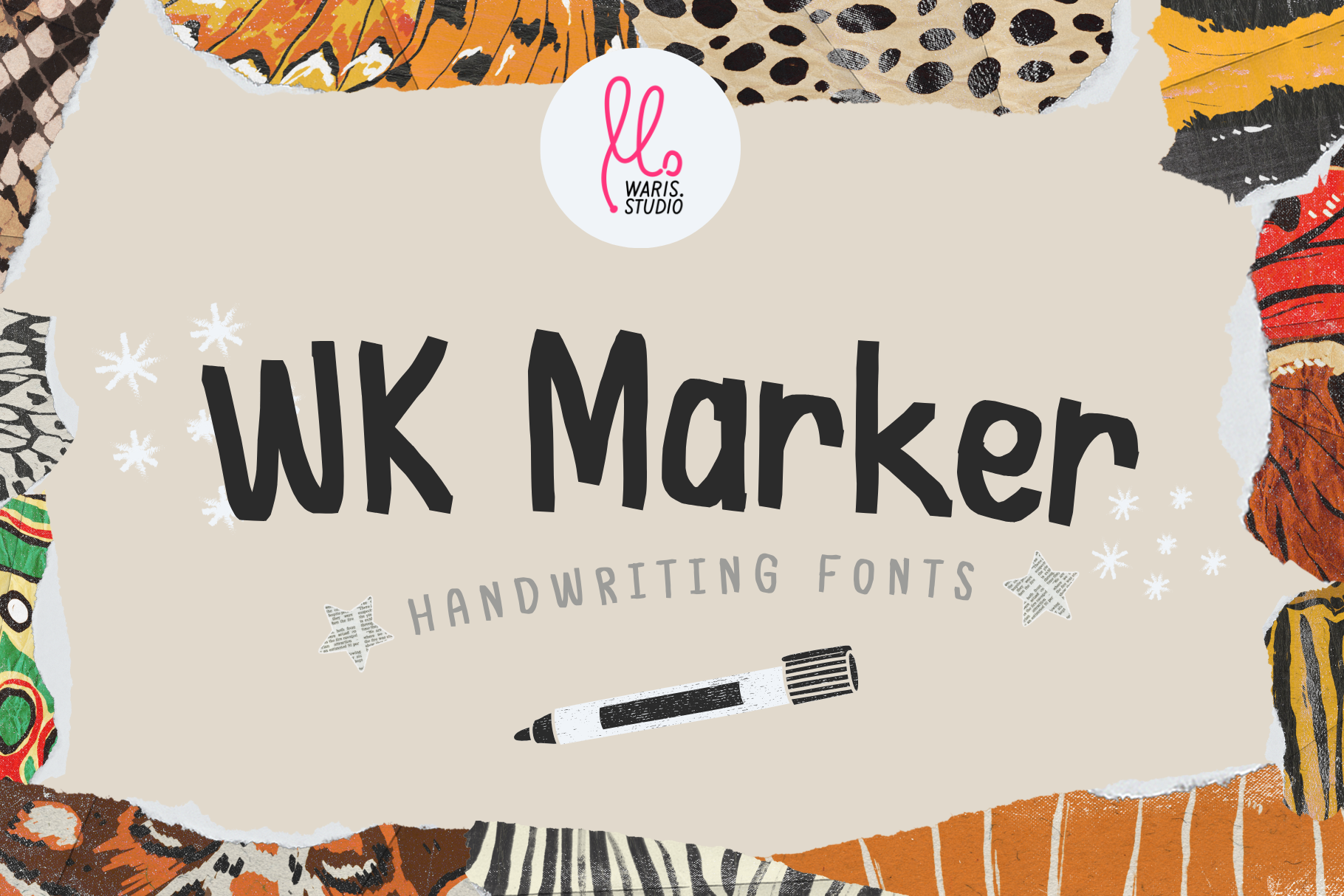
Marker Font
WK Marker is a market font for every design. Perfect for note-taking and journaling, a neat and legible handwritten-style font. It also supports numerical characters, as well as standard punctuation glyphs. You can also use this for invitations, posters, and banners, the list is endless!